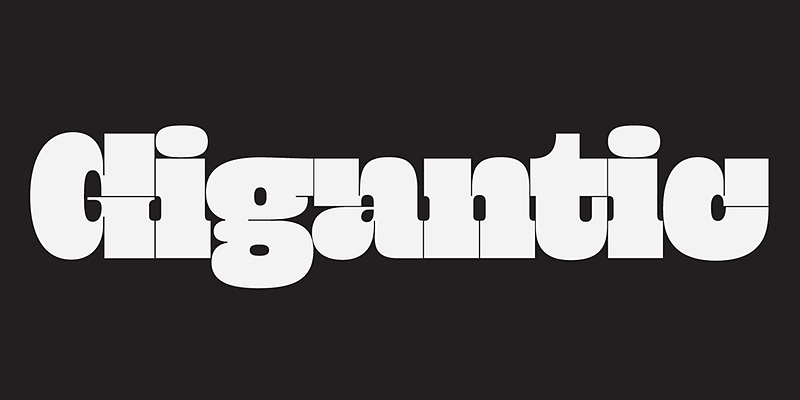
Gigantic Font Free Download is a bold, ultra-heavy display typeface designed to make a huge impact. With its thick strokes, tight spacing, and commanding presence, Gigantic is perfect for posters, headlines, album covers, branding, and any design that needs to shout loud and proud.
This font is all about presence. Its geometric shapes and blocky letterforms deliver a modern, powerful feel that’s ideal for attention-grabbing visuals. Whether you're working in fashion, music, sports, or streetwear, Gigantic Font Free Download brings a punch of attitude and style to your typography.
Despite its heavy weight, Gigantic remains highly legible, especially in large sizes. It’s best used in short bursts—titles, logos, or punchy slogans where every word counts and the visual impact speaks for itself.
Gigantic isn’t just a font—it’s a design weapon. Loud, fearless, and built for big moments, it’s the perfect choice when you need your message to be seen and remembered.